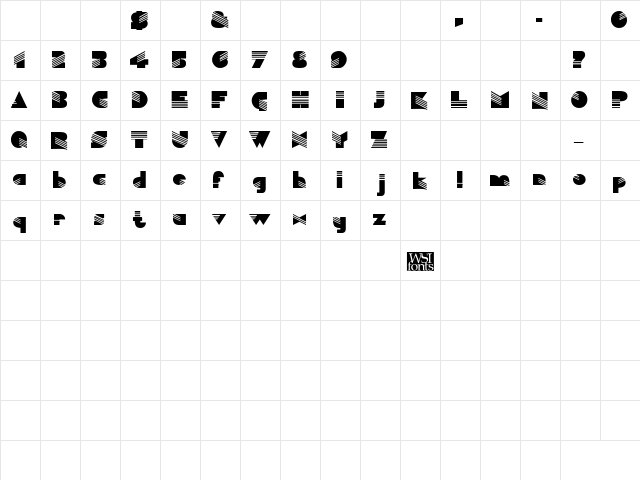
SaminoaDisplay Regular
Design Context for SaminoaDisplay Typeface
SaminoaDisplay is built around its visual character rather than neutral utility — its distinctive forms are designed to make an impression at display sizes.
Font Pairing: Pair with a clean neutral sans-serif for body copy to let SaminoaDisplay's character lead without overwhelming the composition.
Pro Tip: Treat SaminoaDisplay as the centrepiece of your typographic hierarchy. One strong heading set in a decorative face can carry an entire layout.